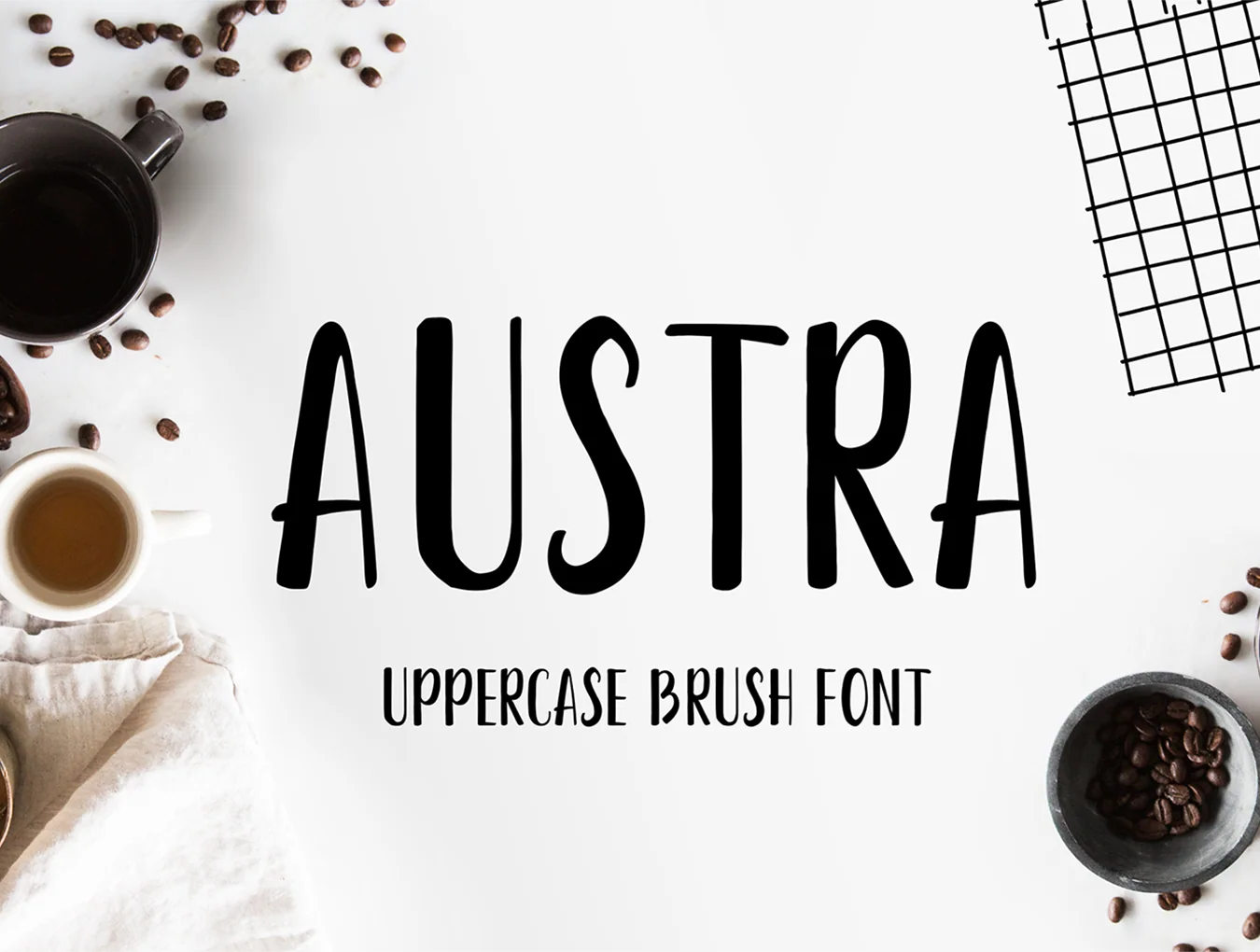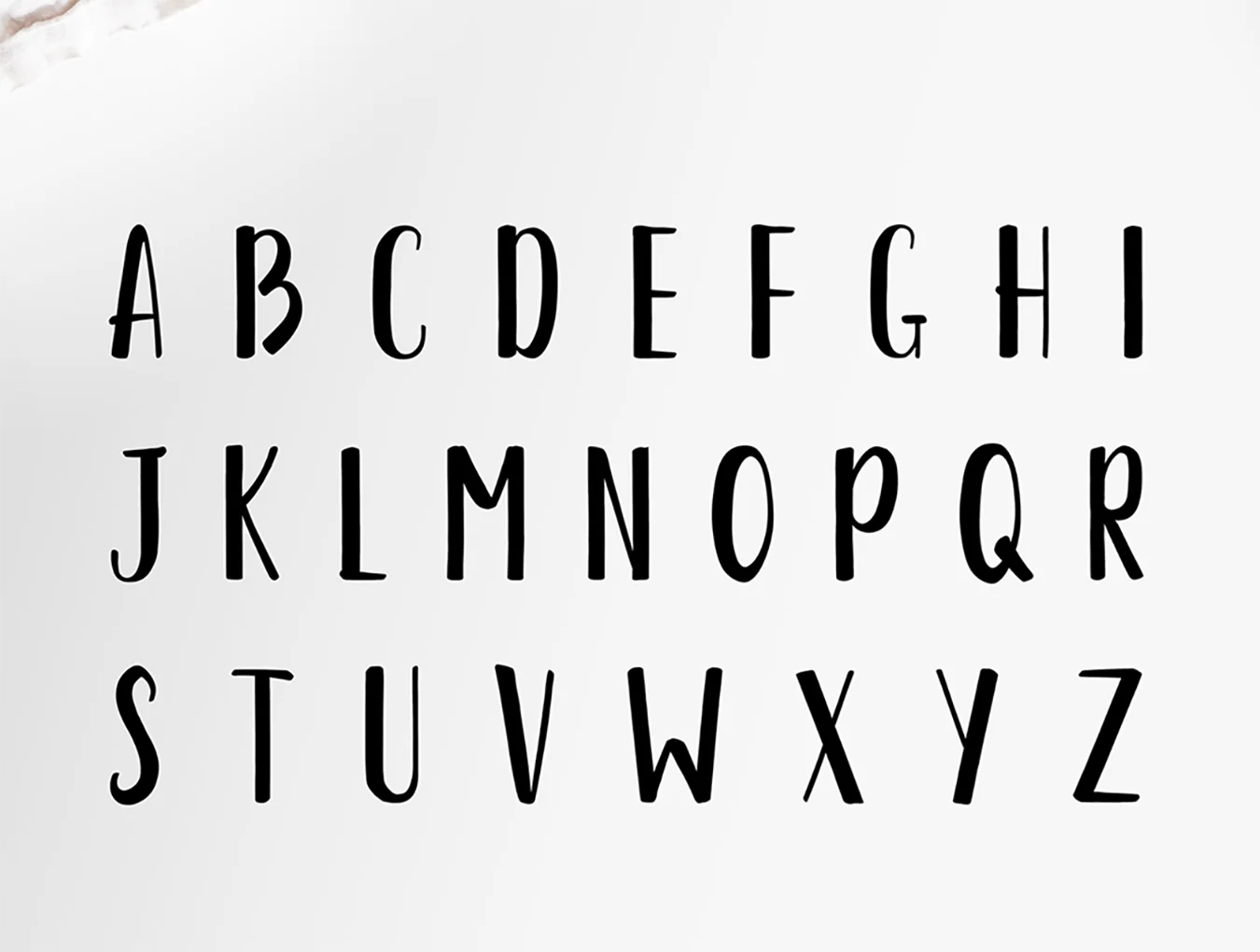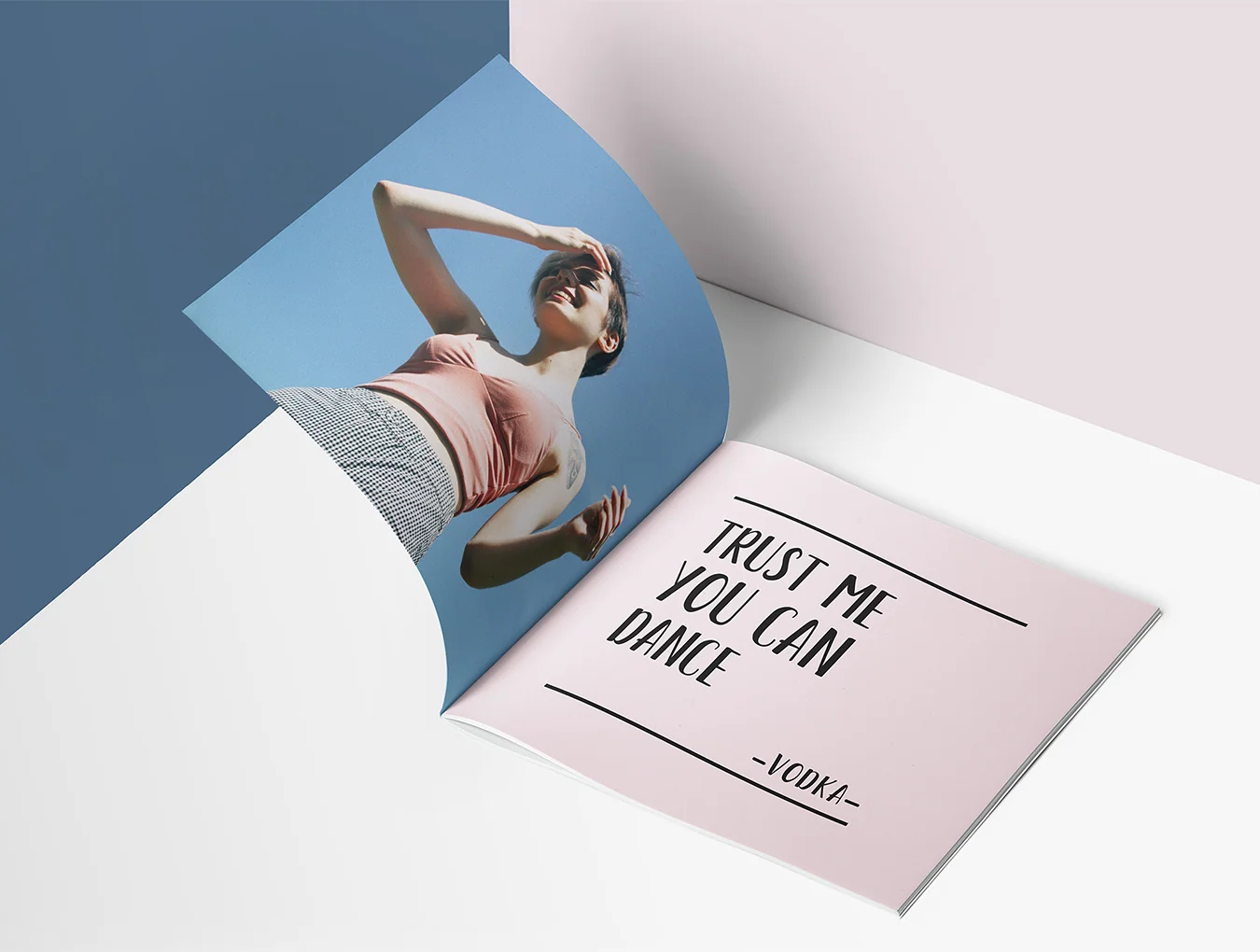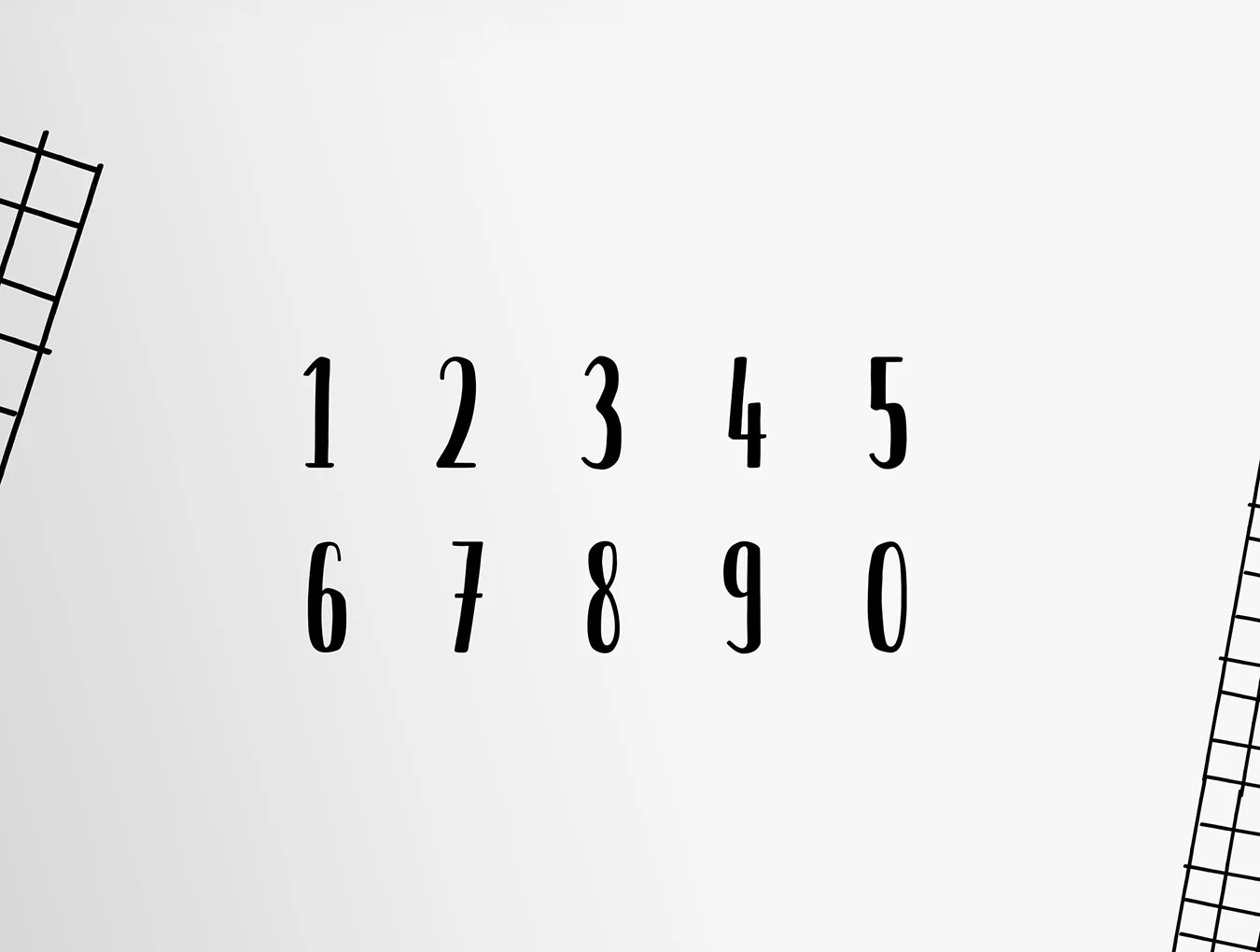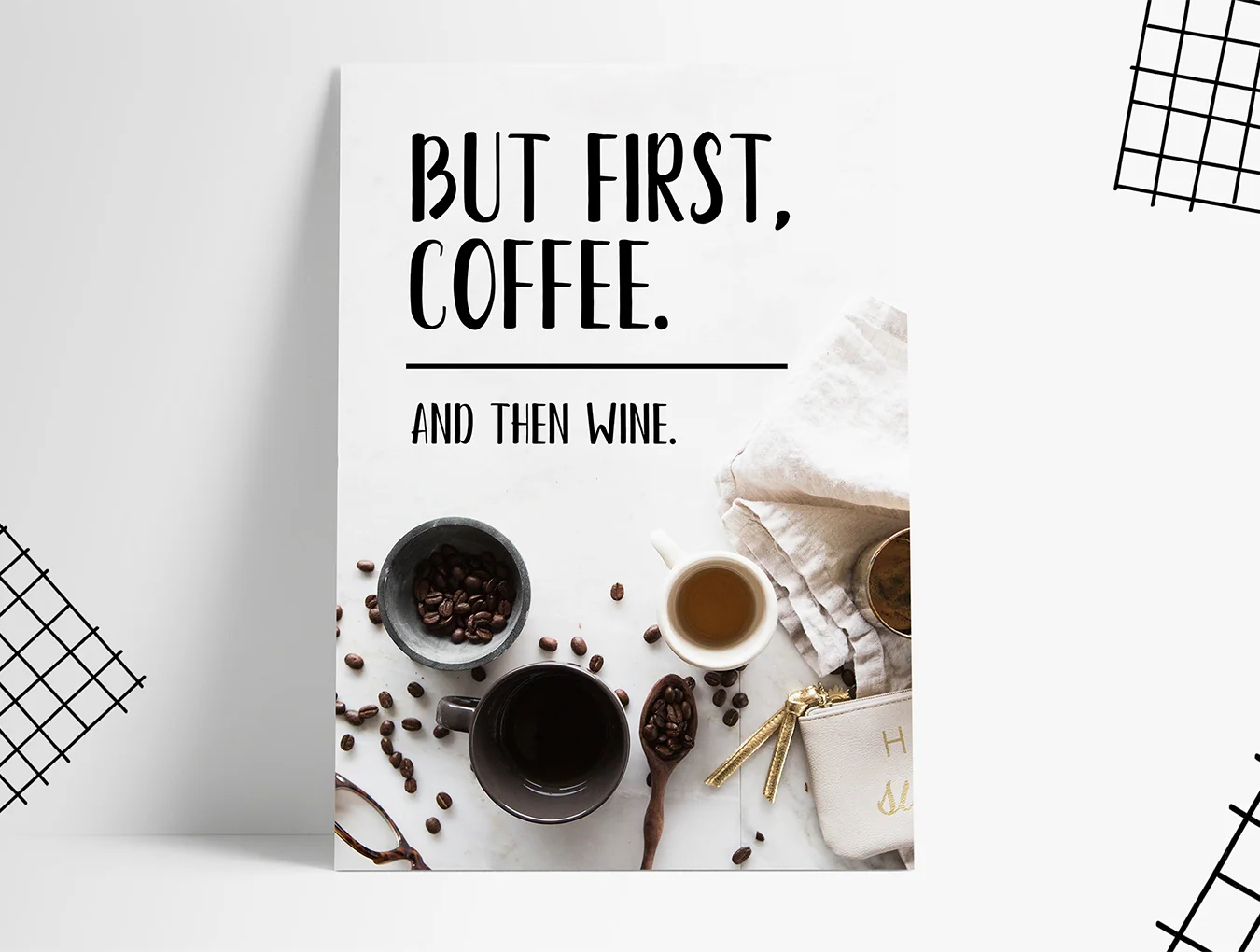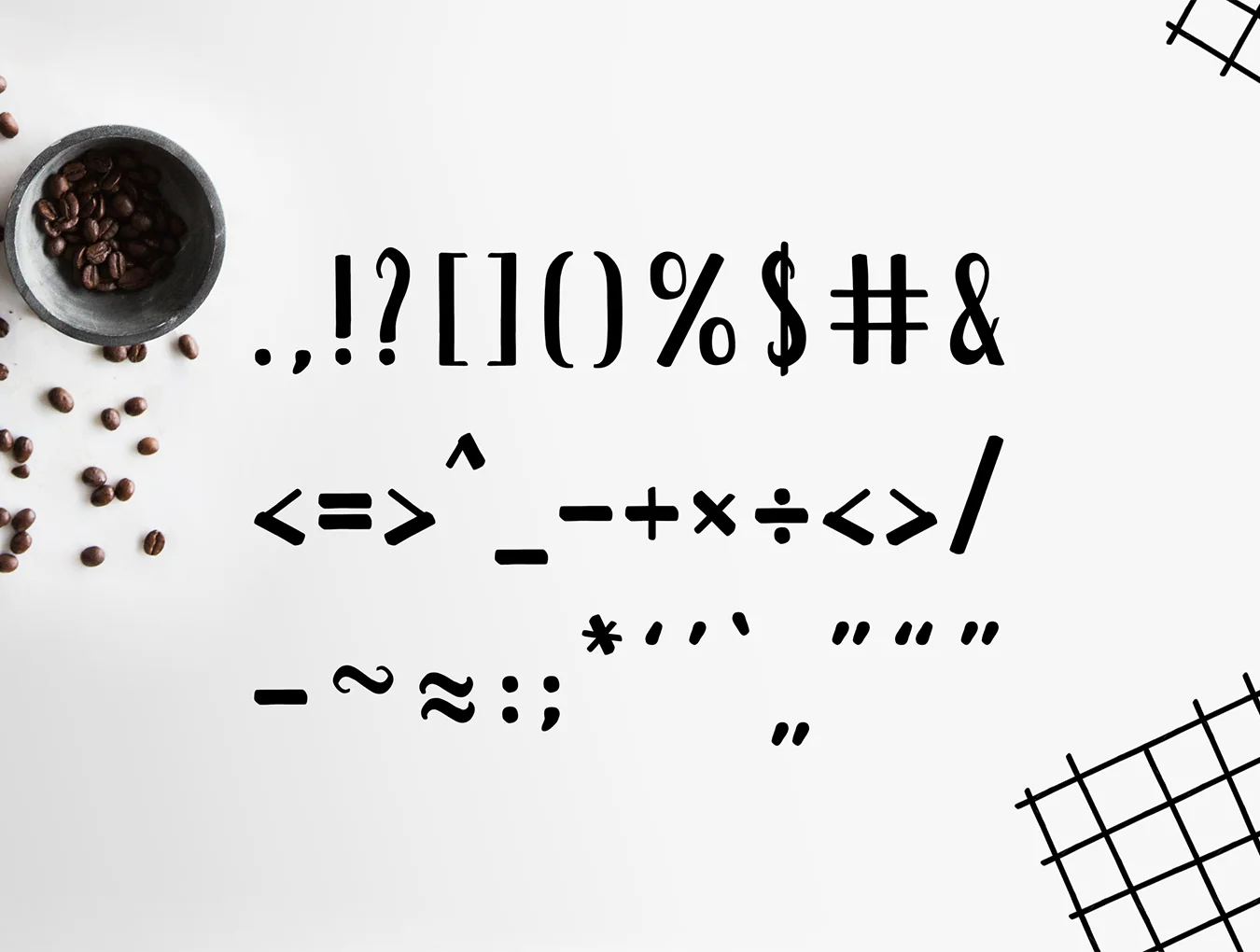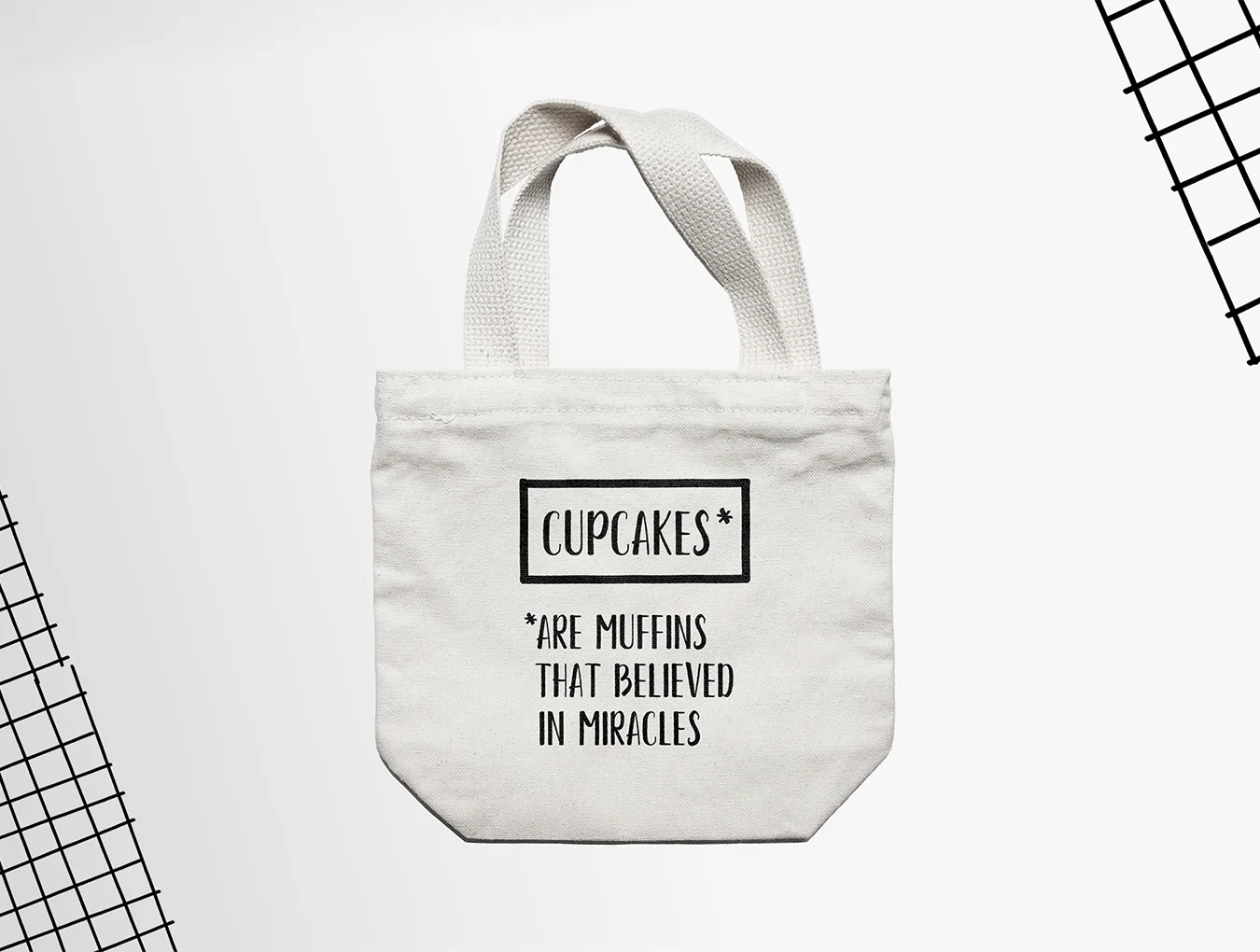
Austra Brush Font
All-caps geometric brush typeface built on a bold structural base.
Capital letterforms
Numerals and special characters
Austra Uppercase Brush Font blends brush styling with a sturdy geometric base. Ideal for brief copy, logos, branding, packaging, headlines, and more. Includes uppercase characters, numbers, and symbols. Files: Austra-Lite.ttf and Austra-Lite.woff. Your WildOnes team